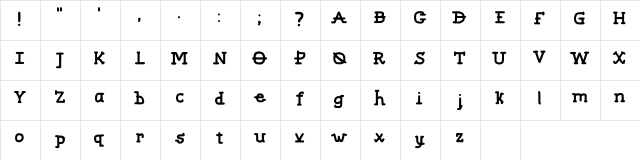
Kray Regular
Design Context for Kray Typeface
Kray is a composed and adaptable typeface that performs quietly and consistently across a wide range of design contexts.